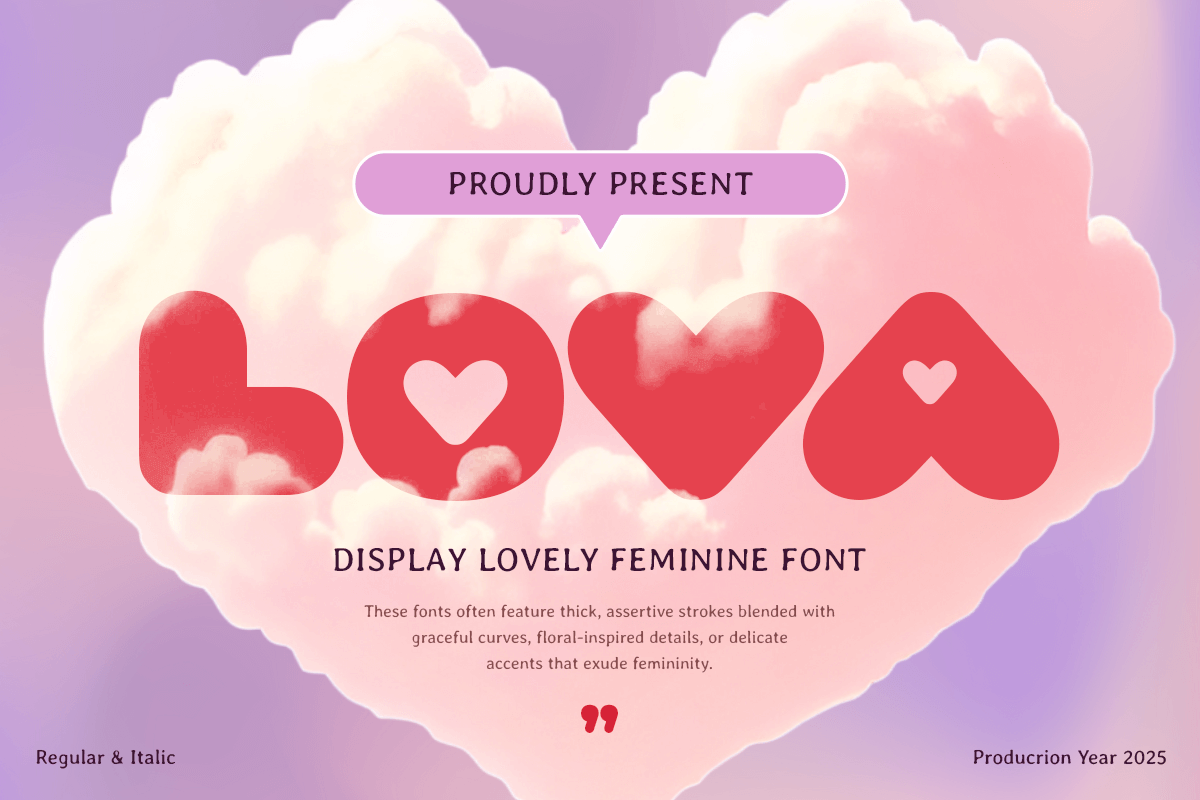
Lova
-Lovely Feminine FontLova Font - Lovely Feminine Font
Lova font is a fancy and sophisticated feminine font designed to exude elegance, charm, and empowerment. With its graceful curves, stylish flourishes, and refined details, this typeface is perfect for celebrating International Women’s Day and honoring the power, creativity, and beauty of women worldwide.
Ideal for high-end branding, fashion editorials, luxury packaging, event invitations, and inspiring quotes, Lova font brings a glamorous and decorative touch to any project. Whether you're designing for beauty brands, wedding stationery, or celebratory Women’s Day campaigns, this font delivers a perfect blend of sophistication and strength. Let Lova font elevate your designs with its fancy and feminine aesthetic, perfect for capturing elegance, empowerment, and timeless beauty.
Lova font - Fancy Feminine Font Features:
Elegant, stylish letterforms with bold details
All-Caps Characters as Uppercase & Lowercase
Ready with Regular & Italic Version as Alternatives
Perfect for Women’s Day designs, fashion, and feminine branding
Punctuation, numbers, and symbols included
OpenType features
This International Women’s Day, embrace elegance, confidence, and creativity with Lova font—a font that celebrates femininity in the most stylish way.